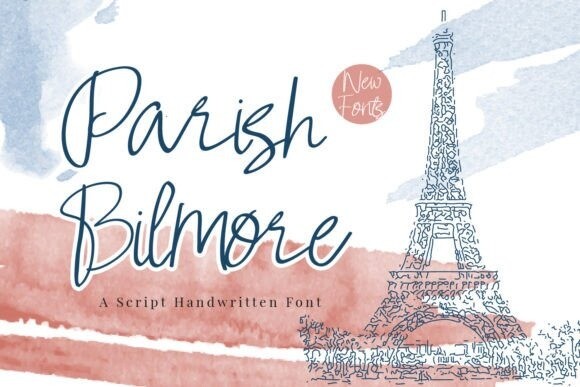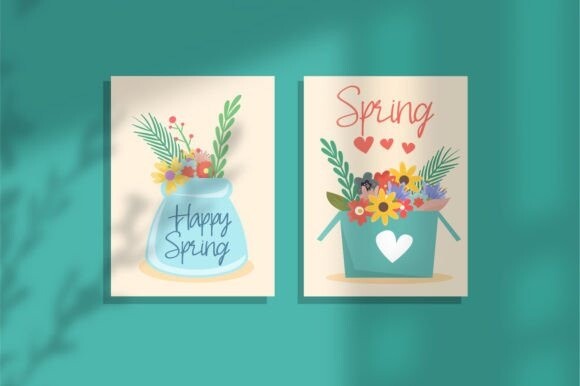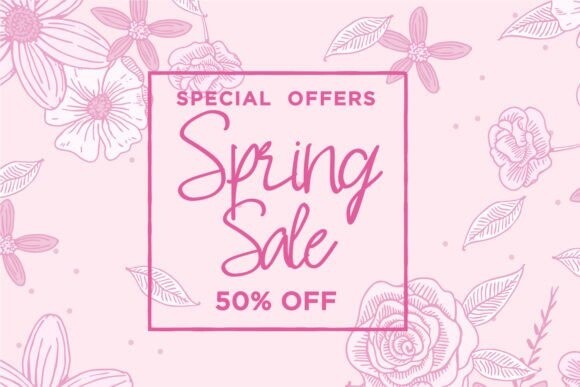
Parish Bilmore Font
Parish Bilmore is a fashionable and stylish script font that radiates elegance and class. With its graceful curves and modern design, this font is perfect for conveying a sense of high-end fashion and sophistication. Whether it’s for fashion branding, editorial design, or product packaging, “Parish Bilmore” will elevate your project to the next level.